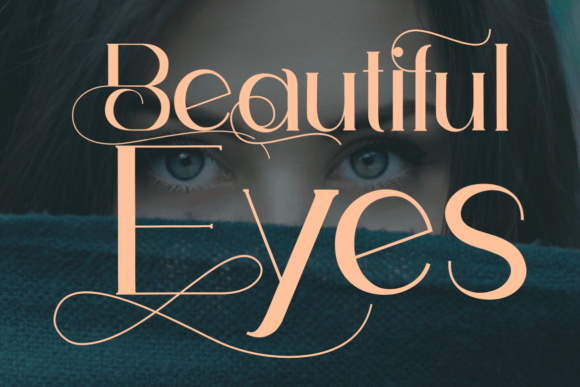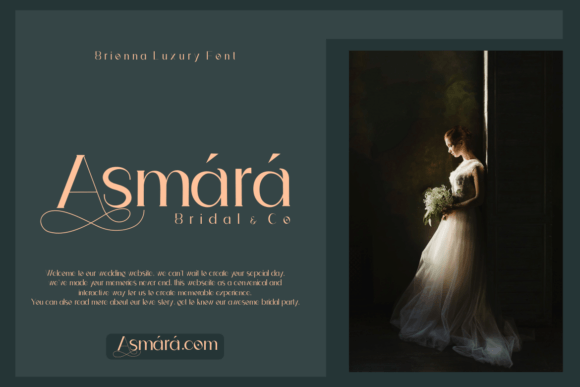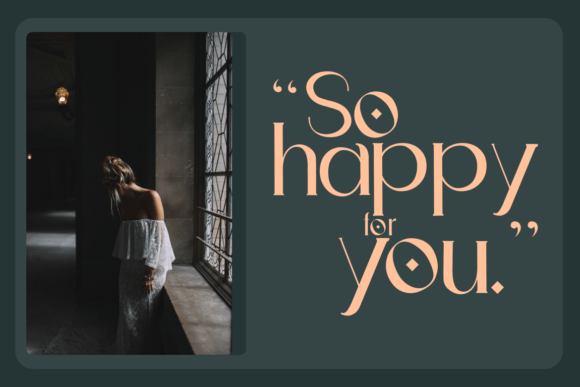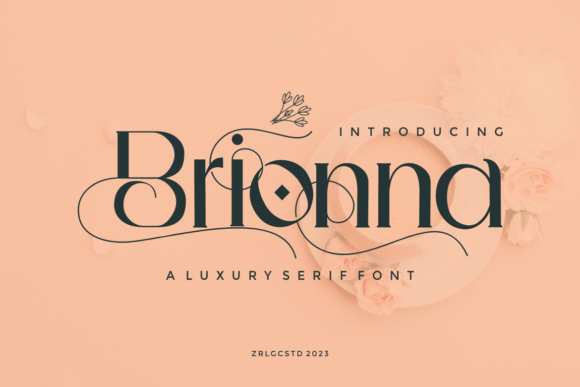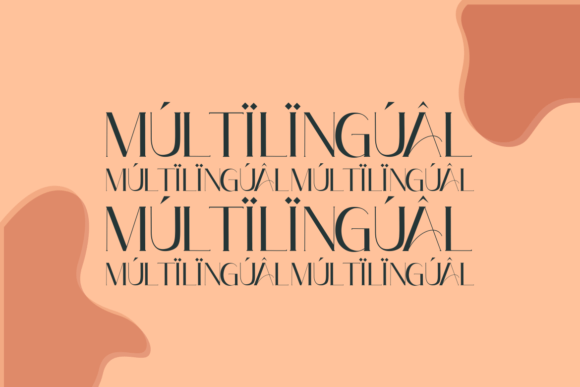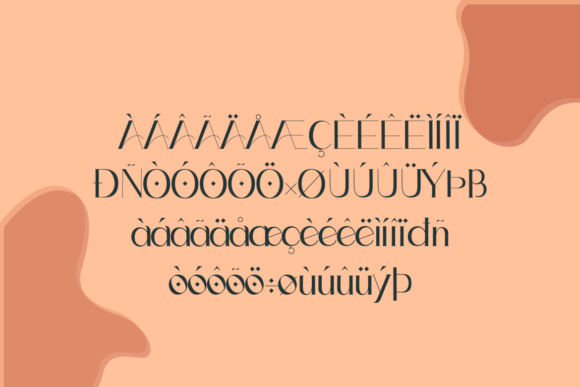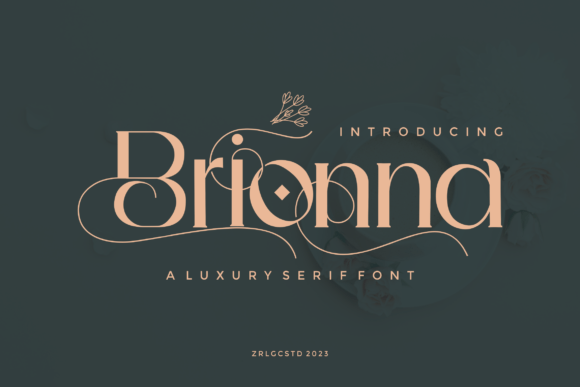
The Timeless Elegance of Brionna Font: A Designer’s Delight
I still remember the project that made me fall in love with the Brionna font. I was working on a luxury brand’s editorial design, and my client requested a font that exuded sophistication and grandeur. After hours of searching, I stumbled upon Brionna, and it was love at first sight. The carefully crafted letterforms, precise serifs, and elegant lines won my heart, and I knew I had found the perfect fit for my project.
An Honest Review of Brionna Font
What I Love About Brionna ✨
• 💯 Timeless elegance: Brionna’s classic design makes it perfect for high-end typography projects, editorial design, and upscale branding.
• ✅ Attention to detail: The font’s precise serifs and carefully crafted letterforms showcase exceptional attention to detail.
• 🎨 Versatility: Brionna’s range of OpenType features, glyphs, and stylistic alternates make it suitable for various design applications.
• 📚 Readability: The font’s clear and legible design ensures that your text is easy to read, even at smaller font sizes.
• ⚠️ Occasional kerning issues: As with any font, you may encounter kerning issues when pairing Brionna with other fonts or using it at unusual font sizes.
• 🤔 Glyph limitations: While Brionna offers a range of OpenType features and glyphs, it may not have as extensive a character set as some other fonts.
The Designer Inspiration Behind Brionna
Brionna’s design is inspired by the classic serif fonts of the 18th century. Its creator aimed to craft a font that exuded timeless elegance and refined sophistication. The result is a font that is both nostalgic and modern, making it perfect for a wide range of design applications.
Q: What is the best use for Brionna font?
A: Brionna is perfect for high-end typography projects, editorial design, and upscale branding. Its elegant design and precise serifs make it ideal for luxury brands, fashion magazines, and high-end publications.
Q: Can I use Brionna for my logo design?
A: Yes, Brionna can be used for logo design, but it’s essential to consider the font’s legibility and scalability. You may want to experiment with different font sizes, colors, and styles to ensure your logo looks great in various applications.
Q: Can I use Brionna for body text?
A: While Brionna is a beautiful font, it may not be the best choice for body text due to its elegant and refined design. However, it can be used for body text in certain contexts, such as in luxury publications or high-end editorial design projects.